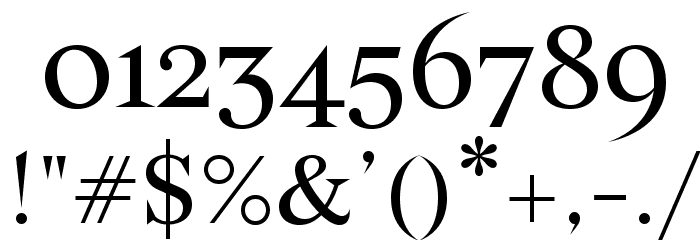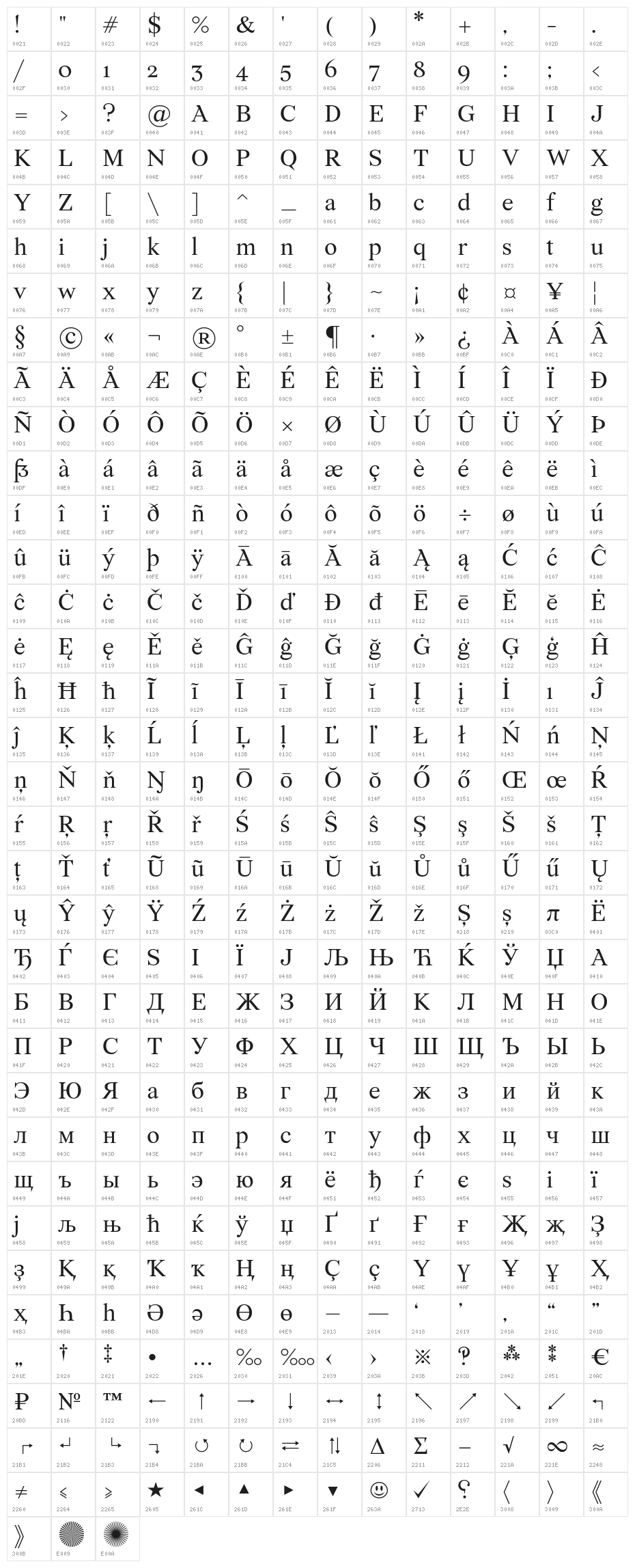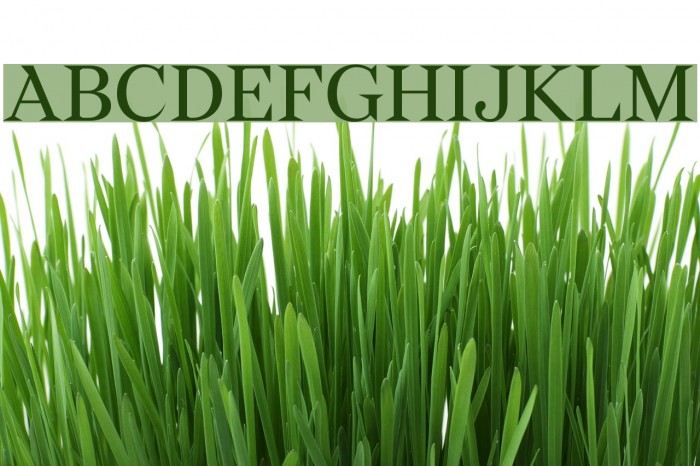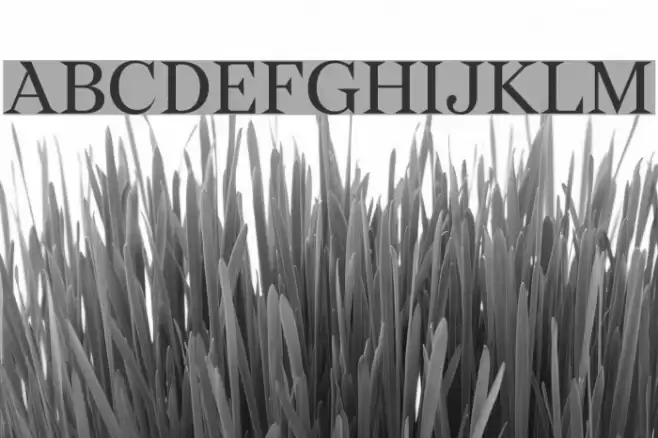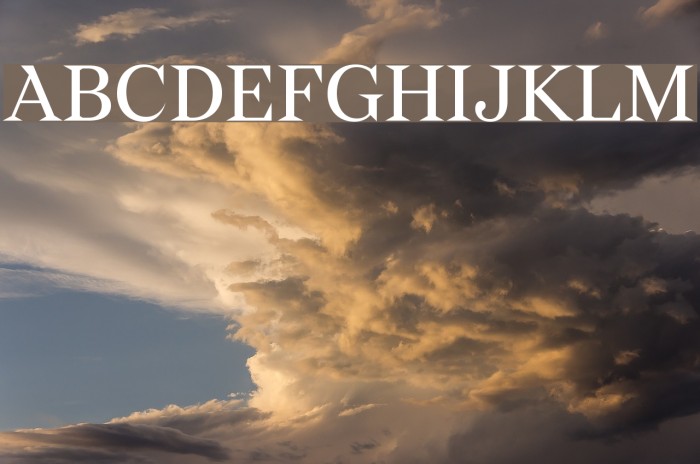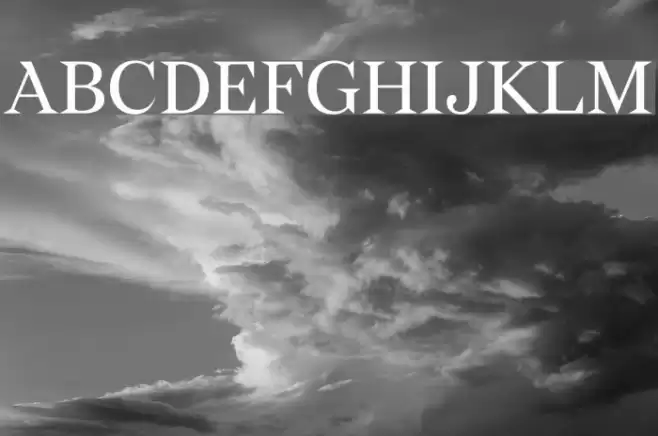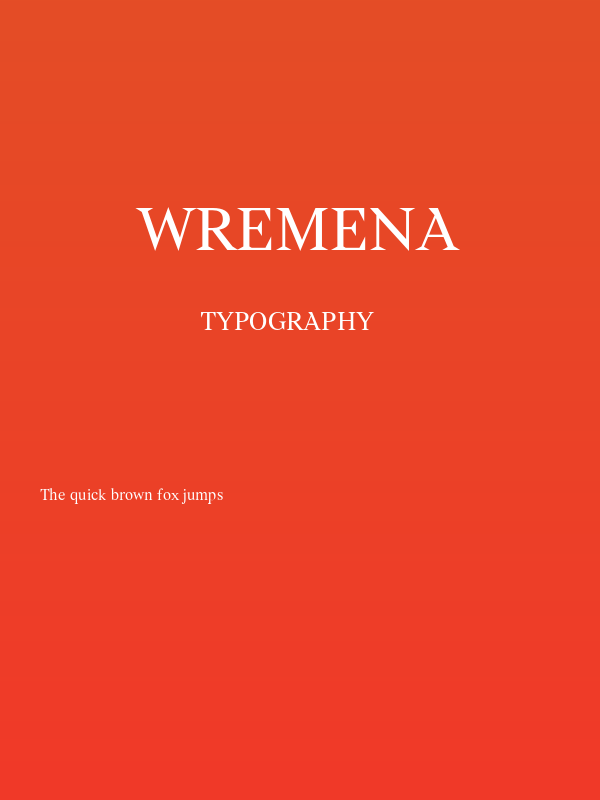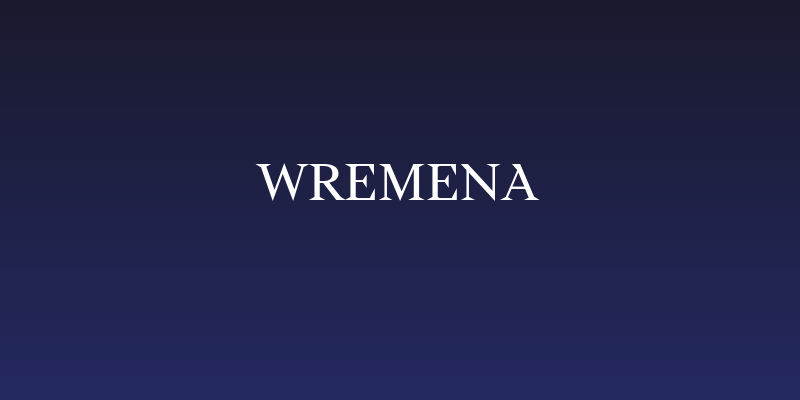
Wremena Font
Wremena Description
This font features a classic serif design with elegant, sharp serifs and a balanced proportion. The uppercase letters are stately and well-defined, while the lowercase letters maintain a consistent style with slightly rounded edges. The numerals are clear and easily distinguishable, making them suitable for various applications. Special characters are designed with the same attention to detail, ensuring a cohesive look across all glyphs. The overall appearance is sophisticated and timeless, suitable for both digital and print media.